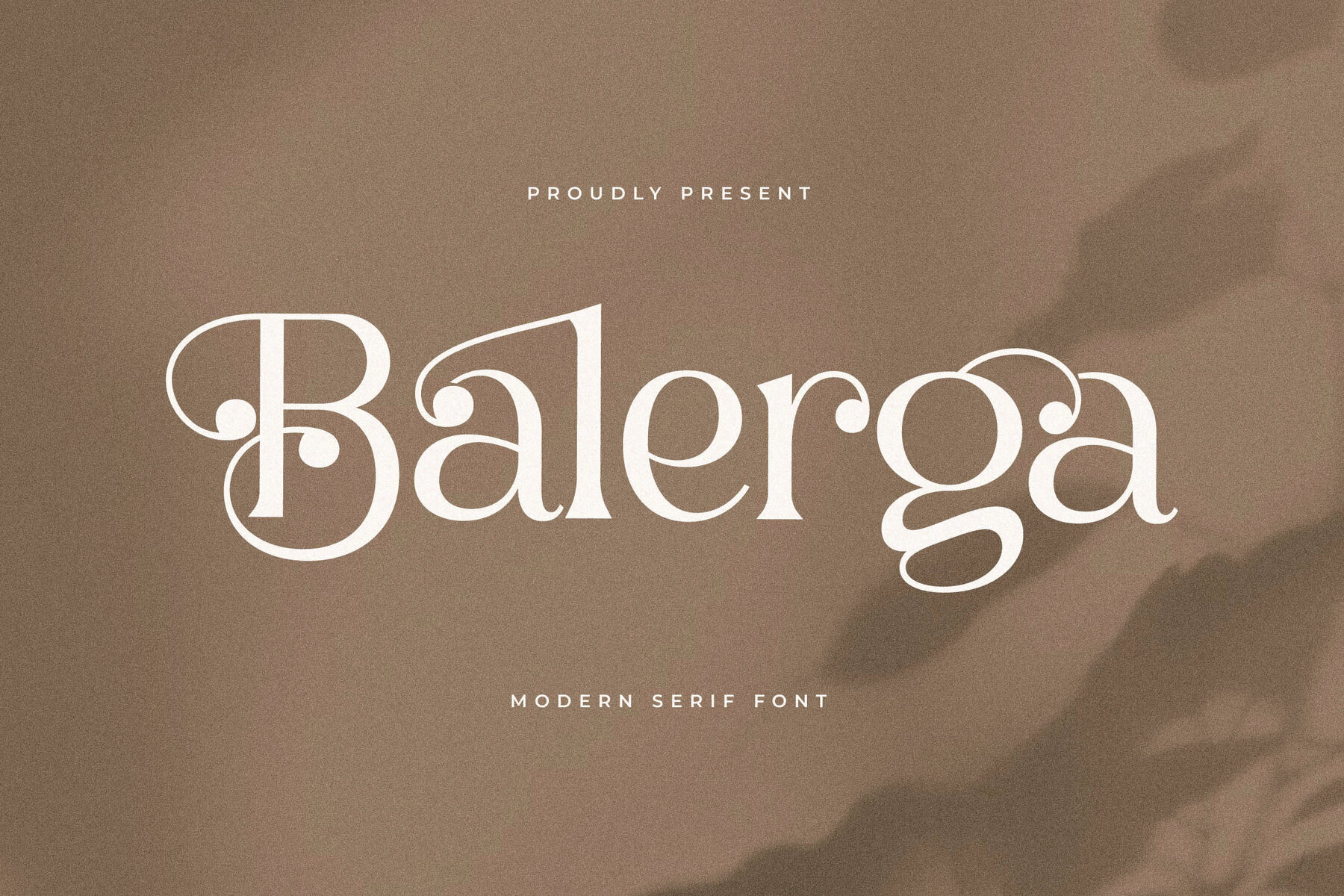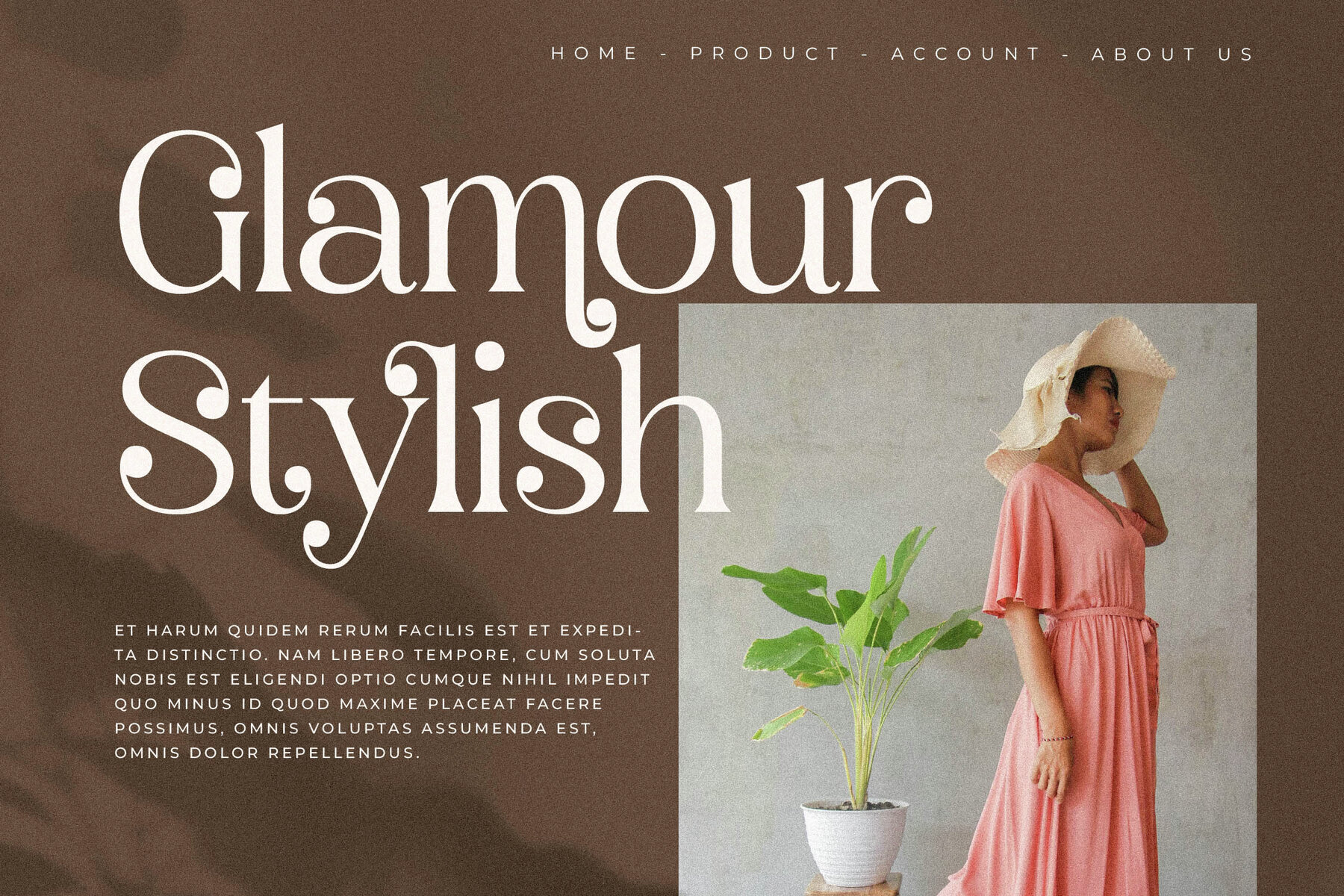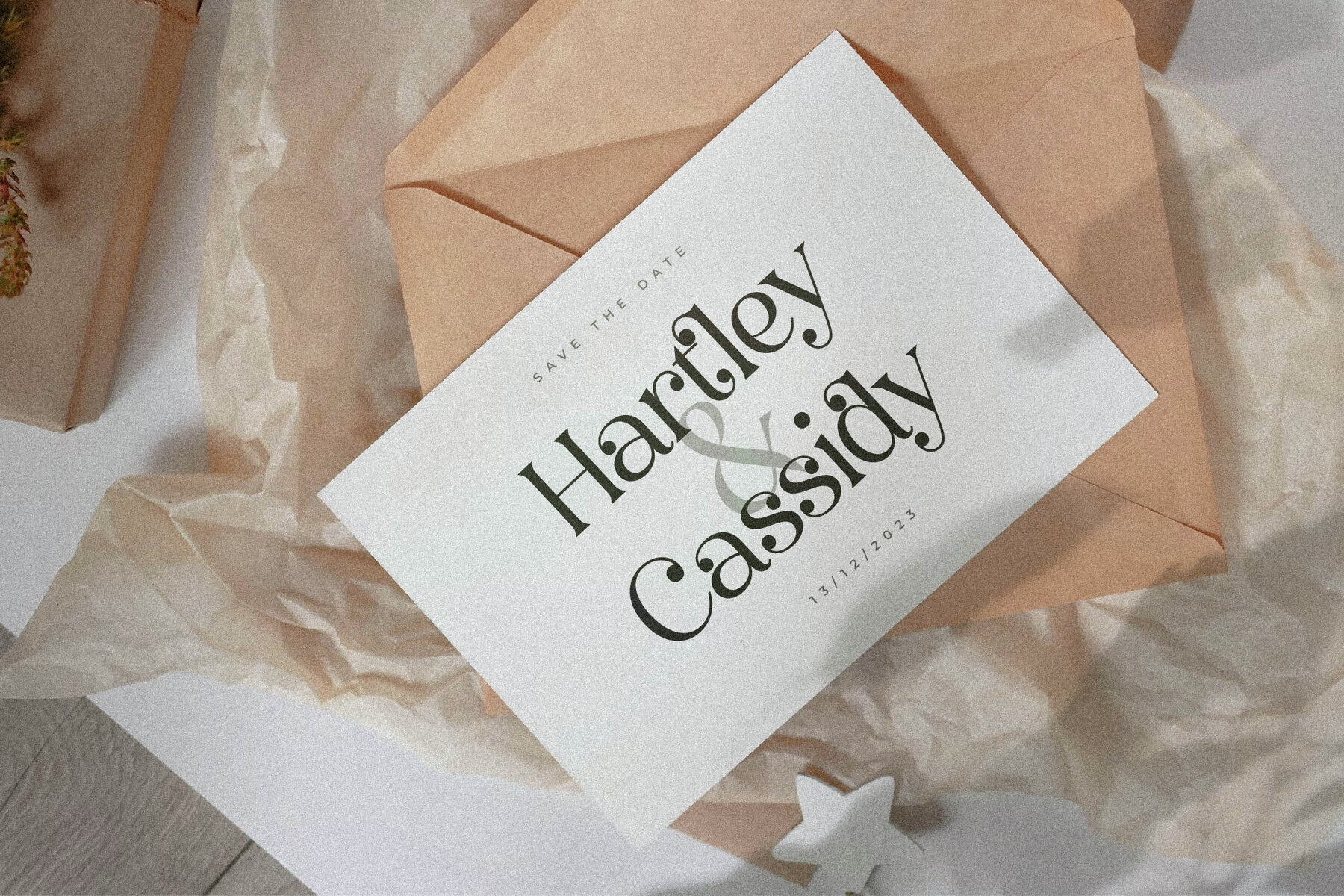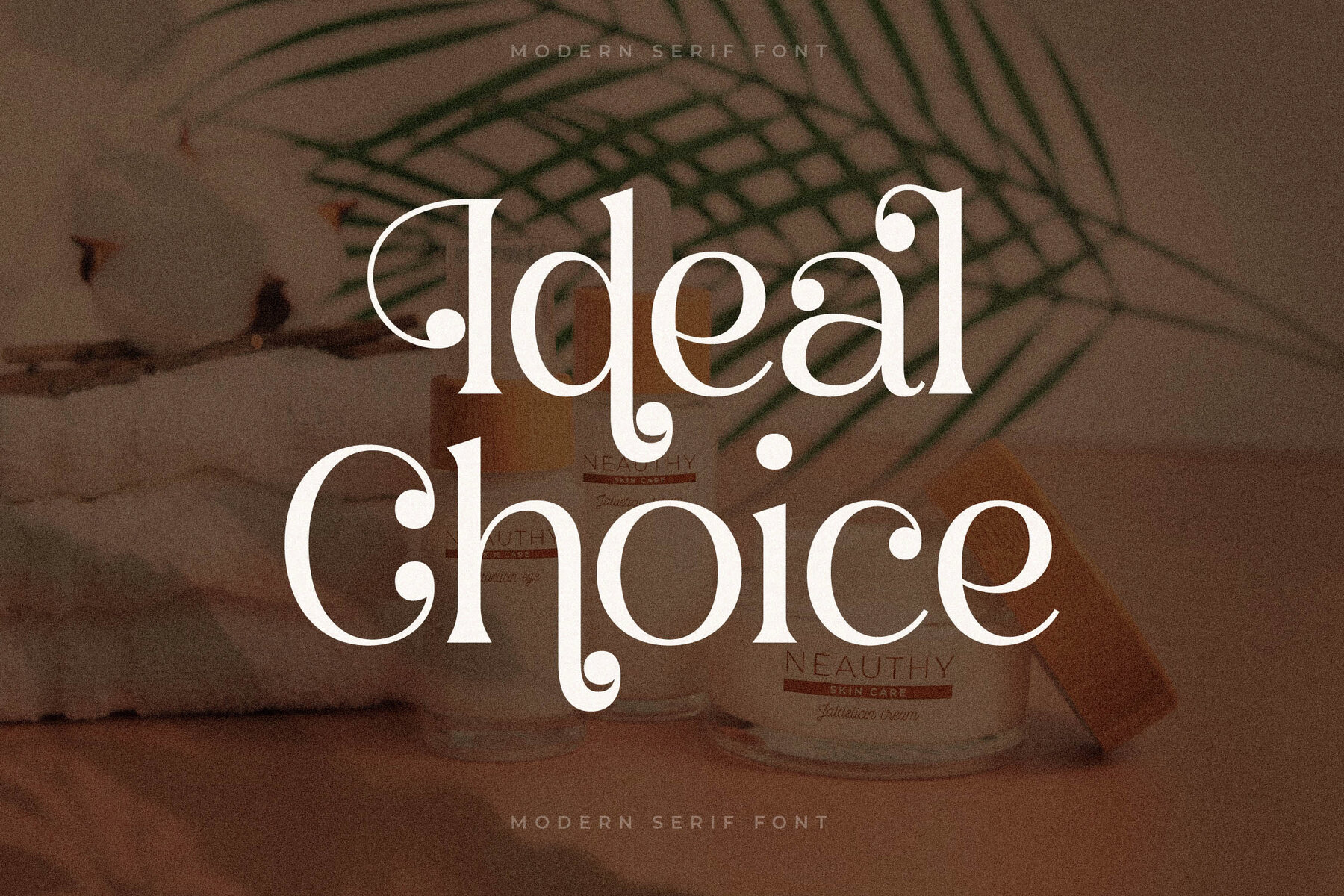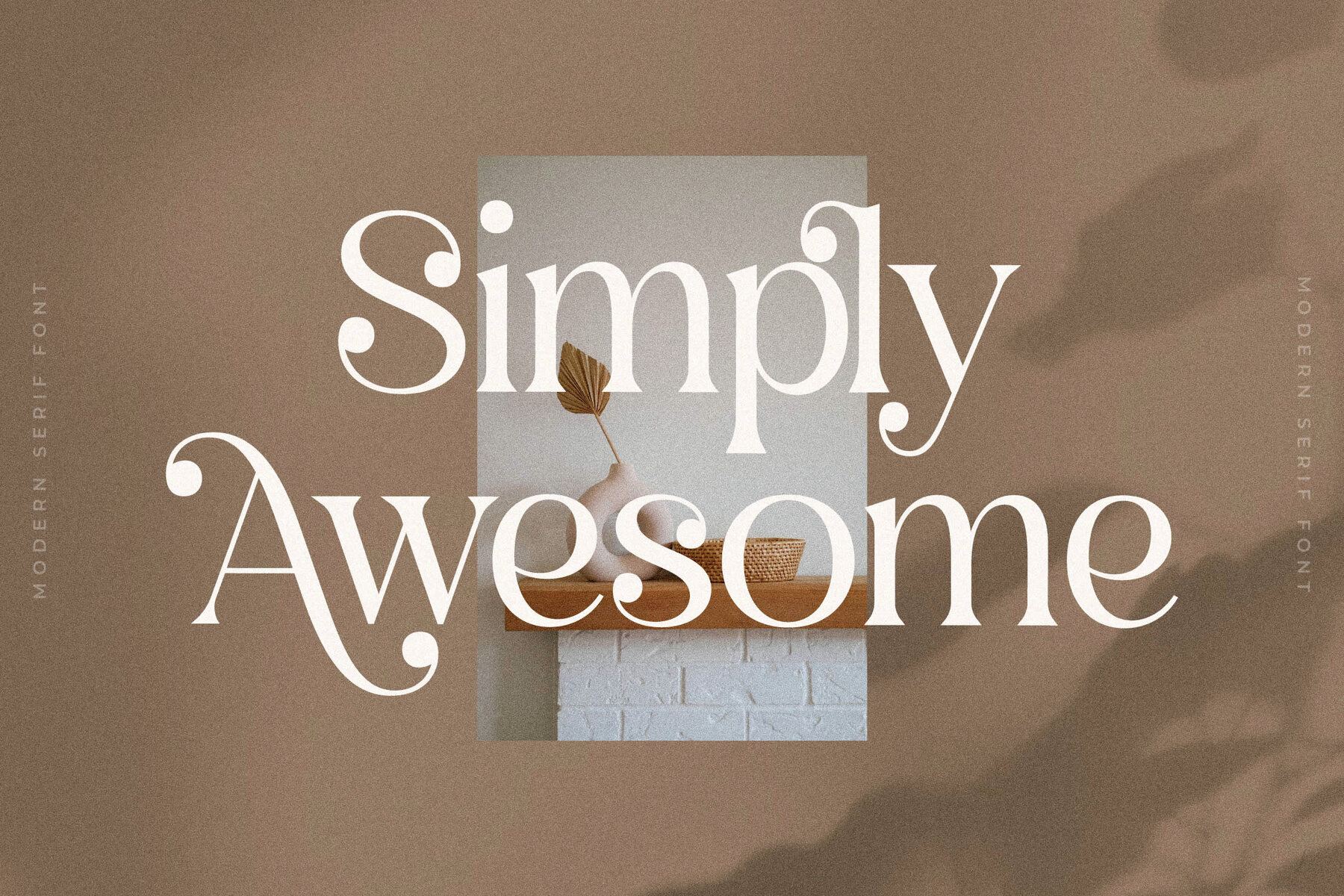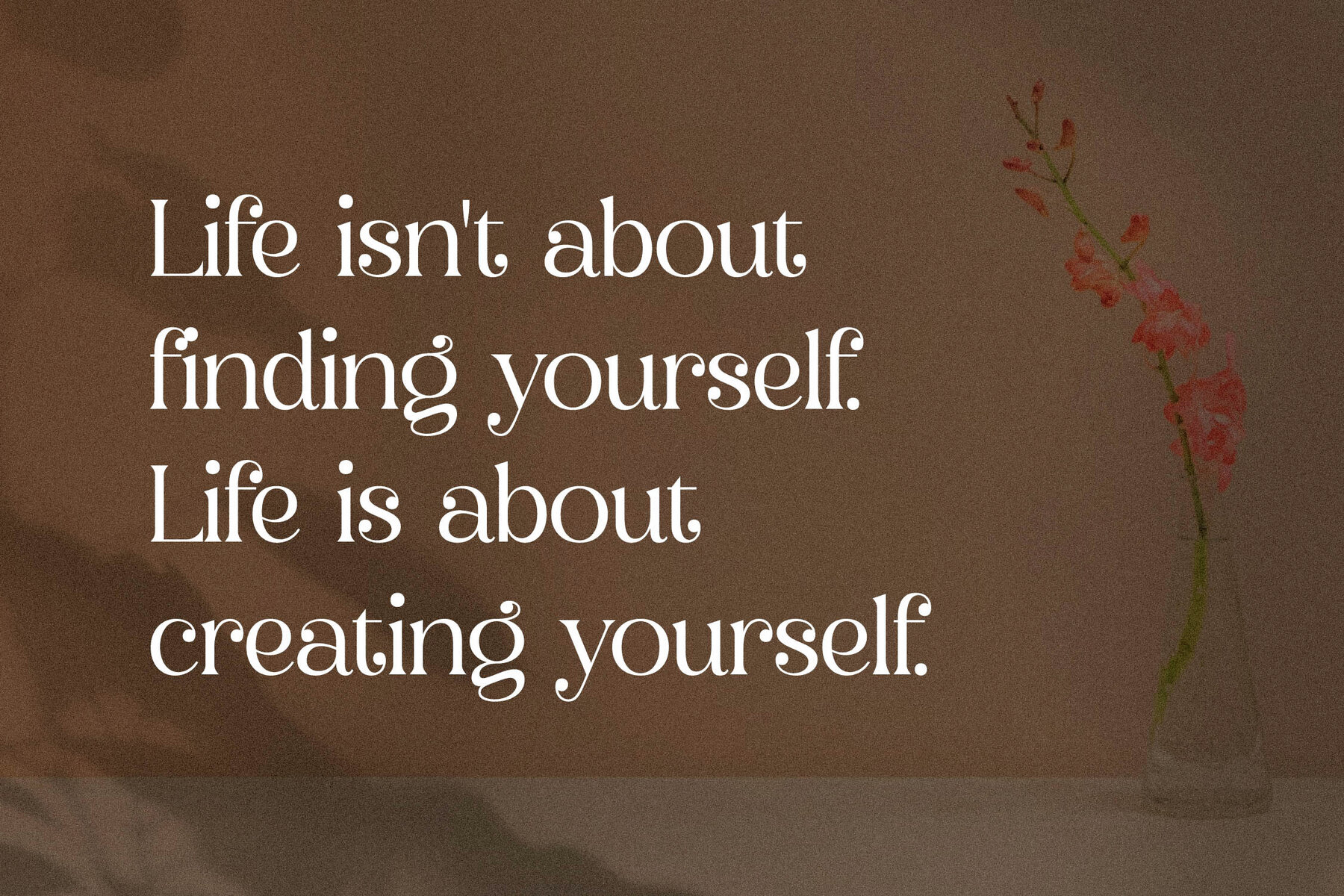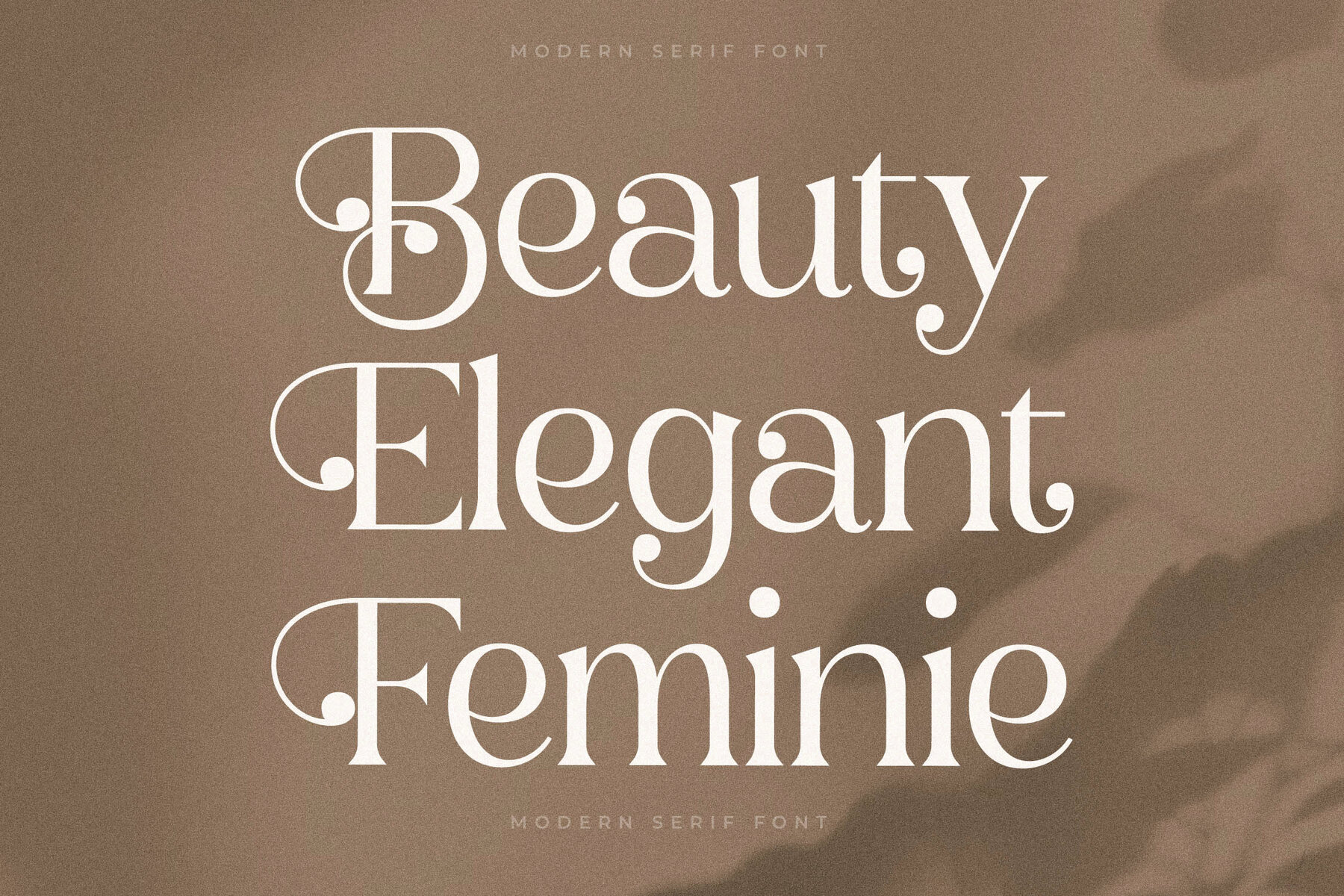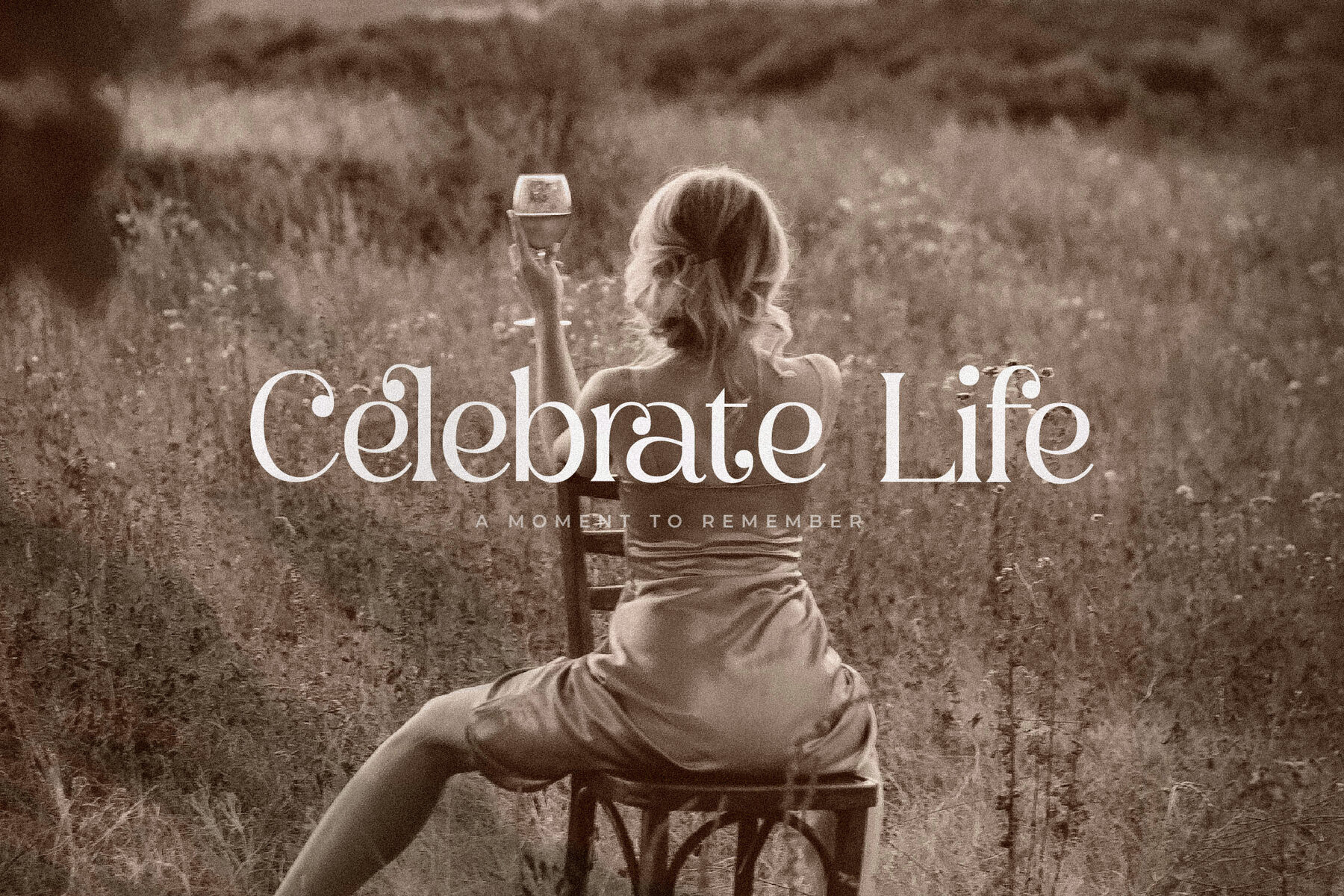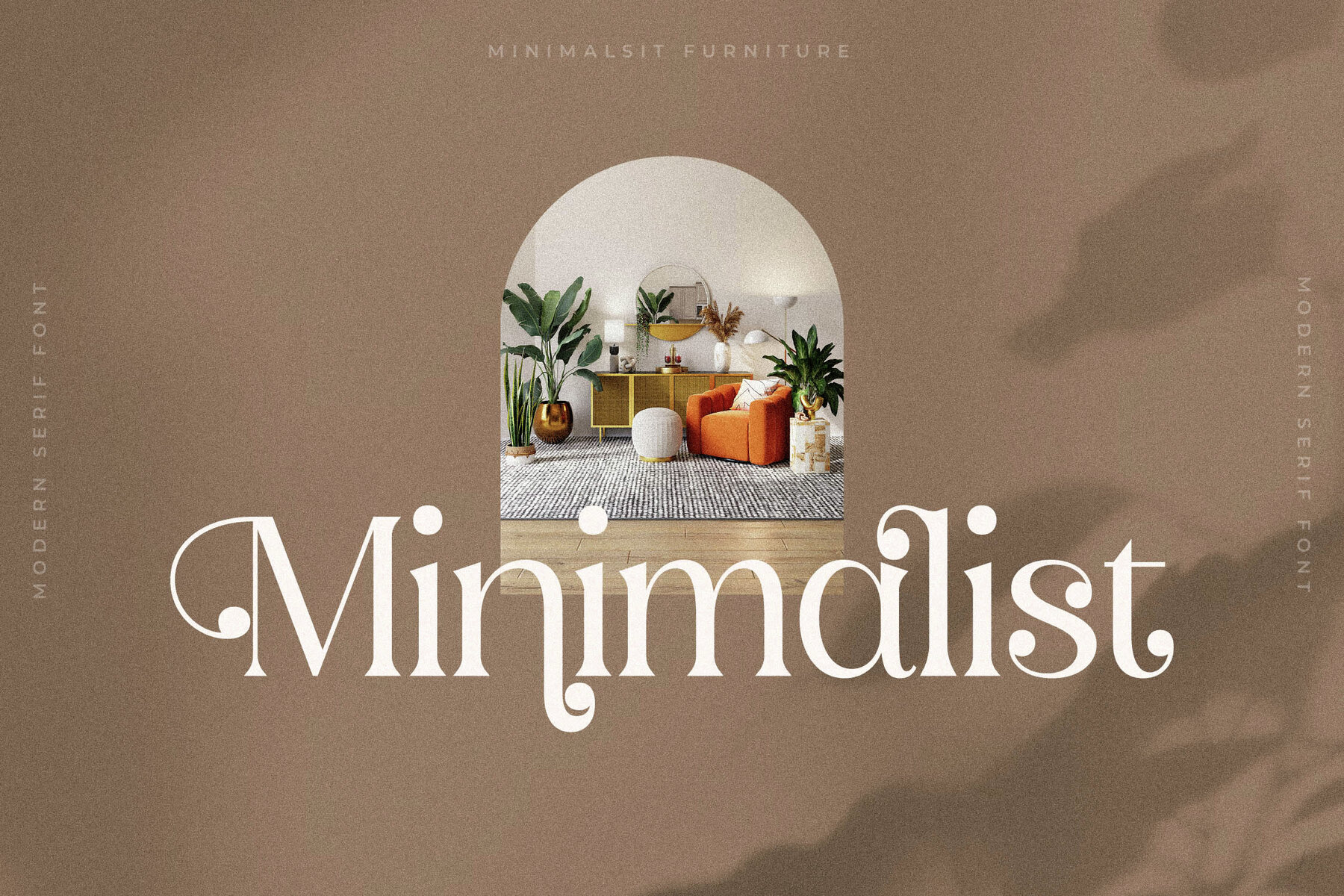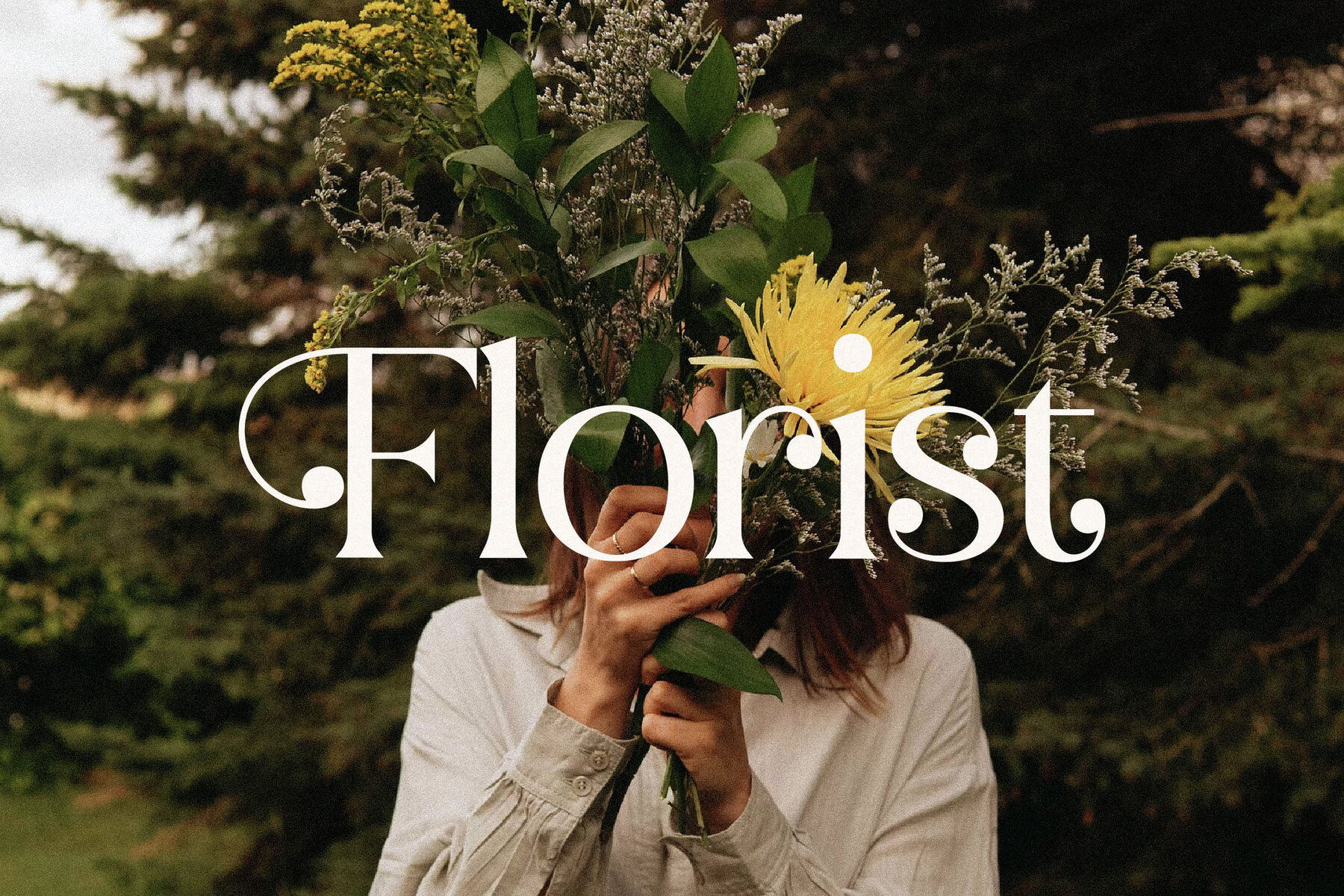
Balerga Font
Introducing the Balerga Typeface, a sophisticated serif font that blends modern aesthetics with classic elegance. Ideal for creating luxurious logos, captivating book or movie titles, and stylish fashion brands, Balerga offers a distinctive character that elevates any design project. Whether you're designing a magazine, crafting lettering art, or composing inspiring quotes, this typeface provides an exceptional touch of class.Balerga Typeface